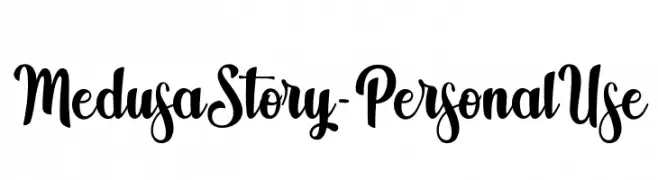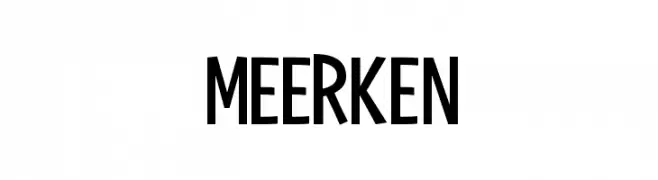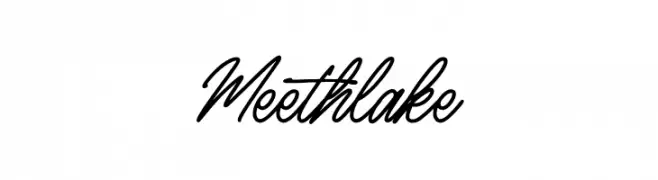
A bold, geometric font with a modern, block-like design.
A pixelated, blocky font with a retro digital display style.
A modern sans-serif font with clean lines and excellent readability.
A playful, rounded font with bold, smooth curves and a friendly appearance.
A bold, hand-drawn font with a rough, edgy style.
An elegant script font with flowing, interconnected letters and calligraphic style.
A flowing, cursive script with a handwritten style and moderate stroke thickness.